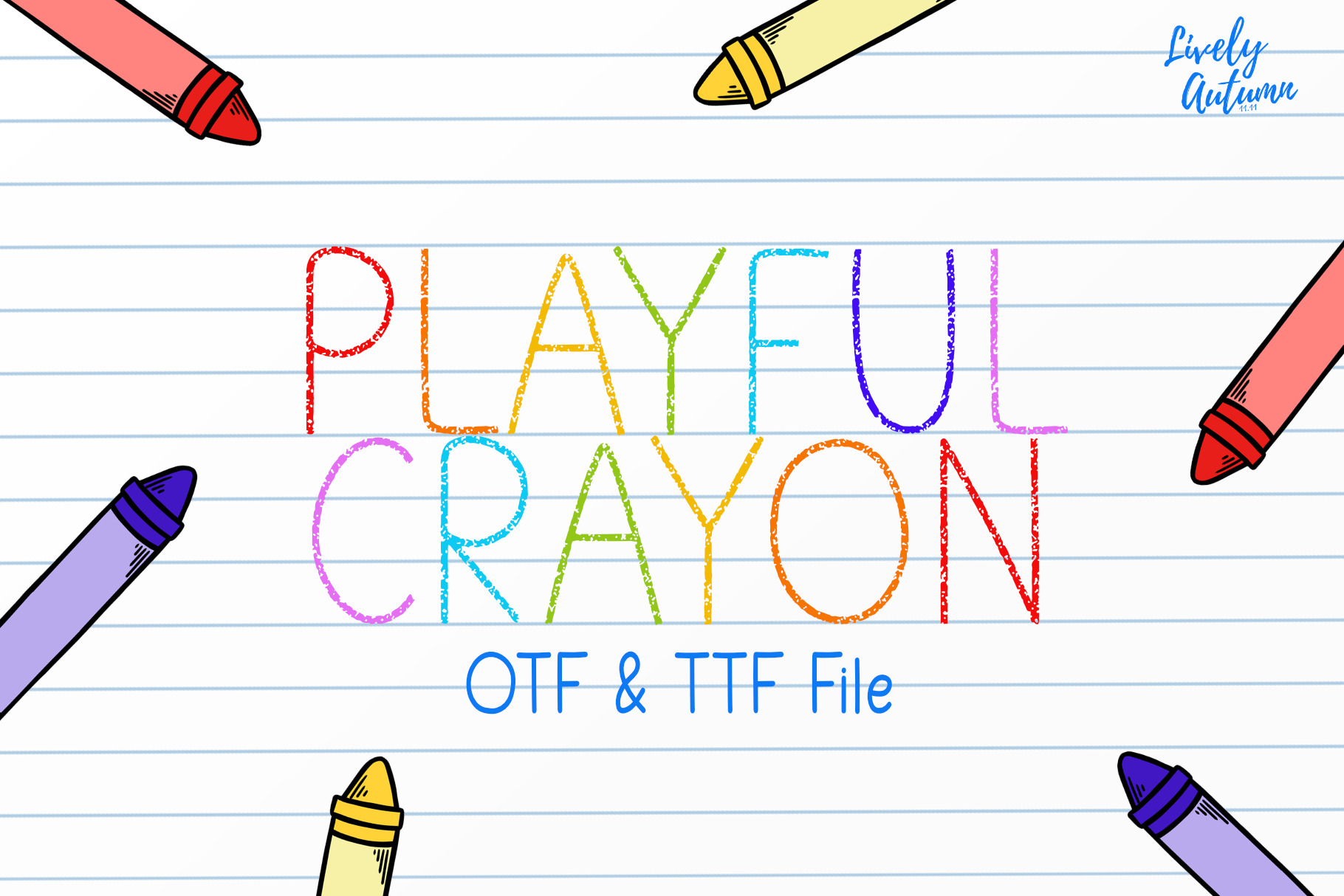
Crayon Font | Handwriting Font
Playful Crayon Font is a simple, san serif handwritten font that has crayon texture in it. Perfect for your art theme project, kids theme project, personal projects and various projects. From invitations to posters, social media graphics, journals, and much more.